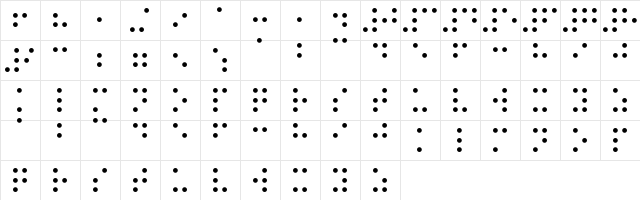
Braille Printing Regular
Design Context for Braille Printing Typeface
Braille Printing is a composed and adaptable typeface that performs quietly and consistently across a wide range of design contexts.
Pro Tip: Pair Braille Printing with a font of contrasting weight or personality to build a more expressive typographic hierarchy.